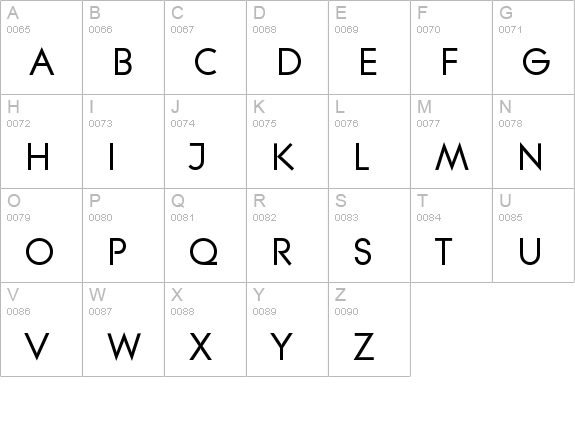
LiteraEF-Medium Font Details
LiteraEF-Medium is a balanced, medium-weight variant in the LiteraEF typeface family \xE2\x80\x94 well suited to sub-headlines, navigation, and balanced editorial work.
Introducing LiteraEF-Medium font, a versatile and modern typeface that strikes the perfect balance between elegance and readability. With its clean lines and contemporary design, LiteraEF-Medium is the ideal choice for a wide range of projects, from branding to editorial design. This font features a medium weight that offers a harmonious blend of sophistication and approachability, making it suitable for both display and text use. Its timeless appeal ensures that it will remain a staple in your font collection for years to come. Best of all, LiteraEF-Medium is available for free download at FontsMarket.com. Simply visit the website to access this high-quality font and elevate your designs with its timeless aesthetic. Download LiteraEF-Medium today and discover the perfect balance of style and functionality for your next project.